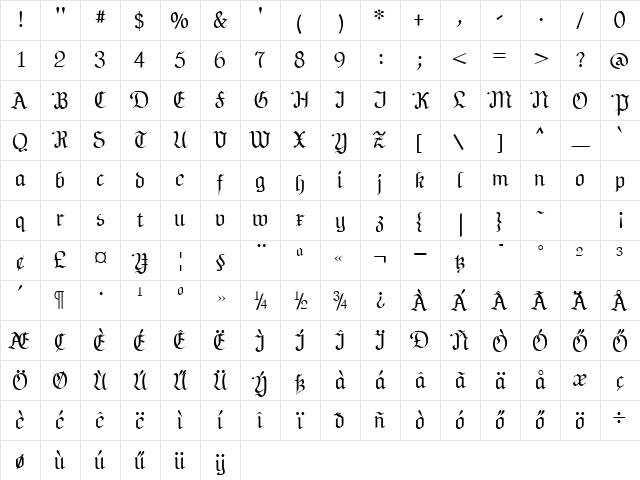
Complete Hu_NeuAltisch Regular glyph index. Displaying only characters natively supported by Hu_NeuAltisch Regular font.
Hu_NeuAltisch is a composed and adaptable typeface that performs quietly and consistently across a wide range of design contexts.